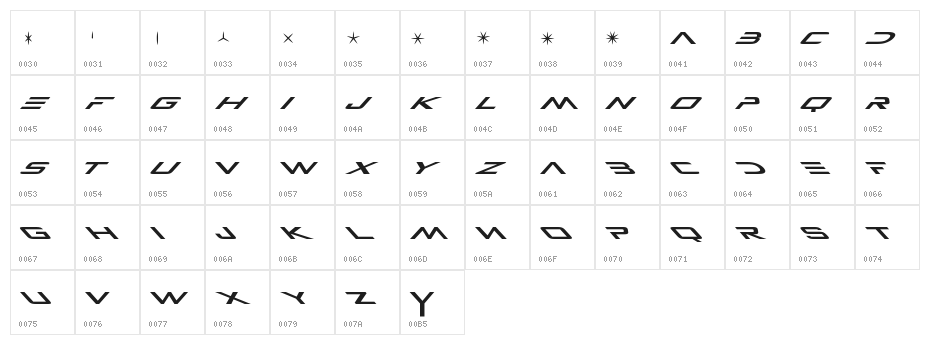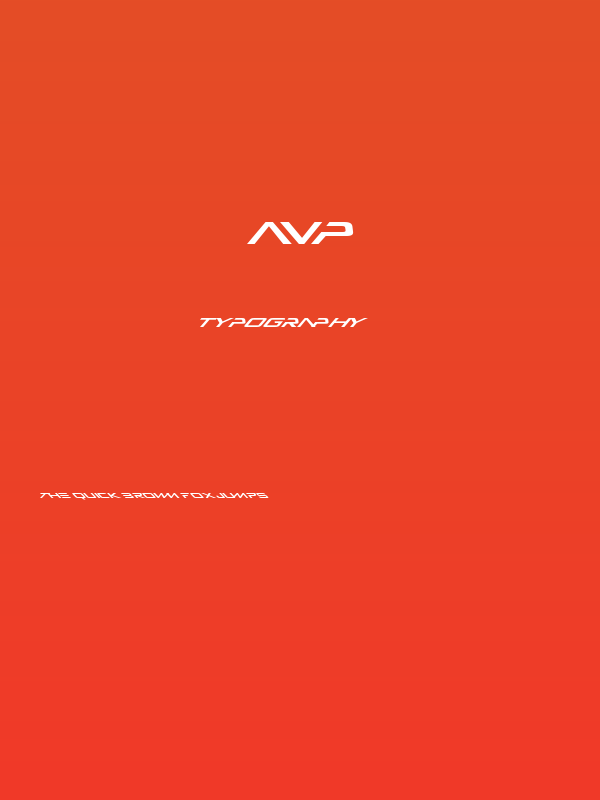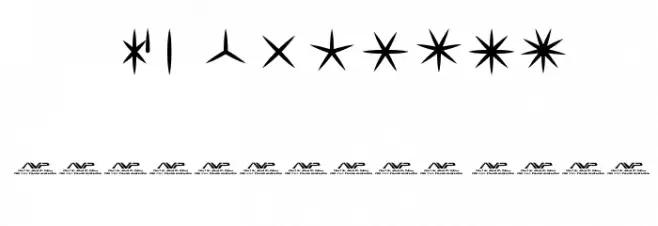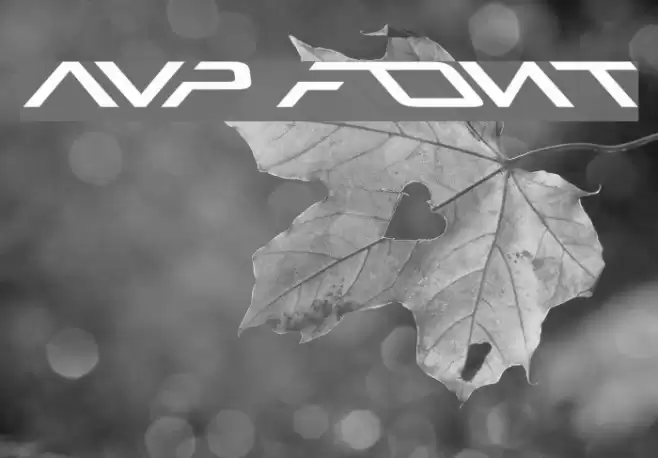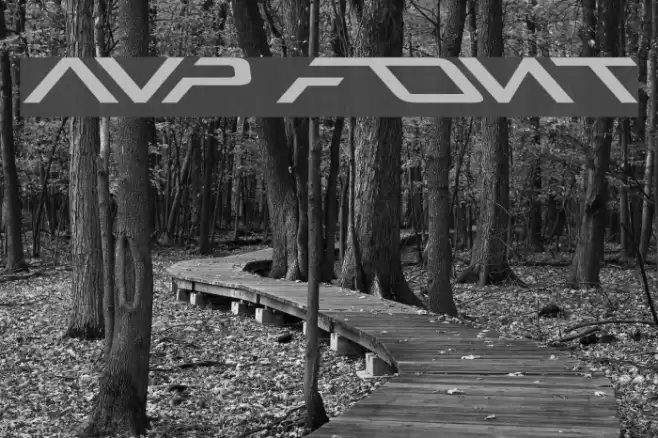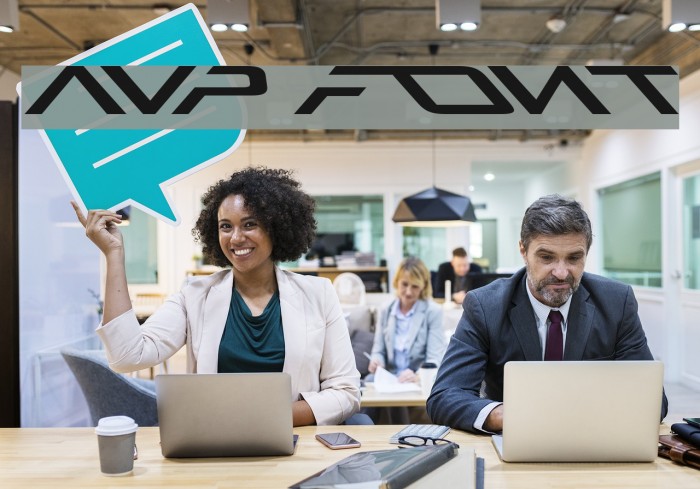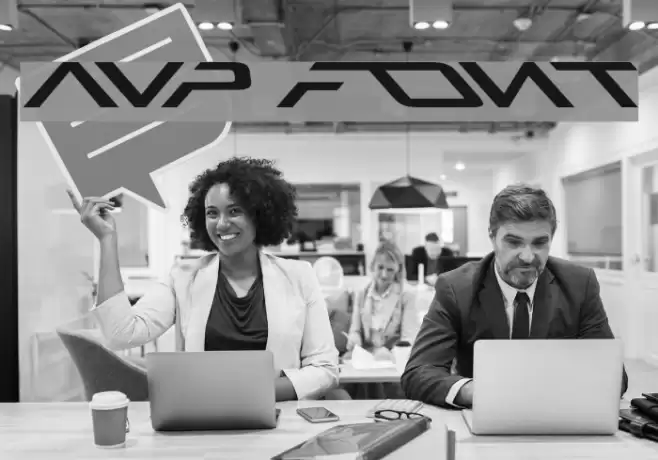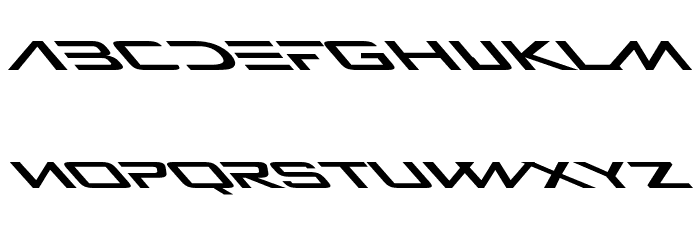
AVP Font
AVP Description
This font features a futuristic and angular design, characterized by sharp edges and a sleek, aerodynamic appearance. The letters are slightly slanted, giving a sense of motion and speed. The uppercase letters are bold and prominent, while the lowercase letters maintain the same angular style. The numbers and special characters are consistent with the overall design, enhancing the cohesive look of the font. This font is ideal for projects that require a modern and dynamic aesthetic, such as technology branding, sci-fi themes, or automotive designs.
| Proposed Projects | Ideal for technology branding, sci-fi themes, automotive designs, and modern advertising. |